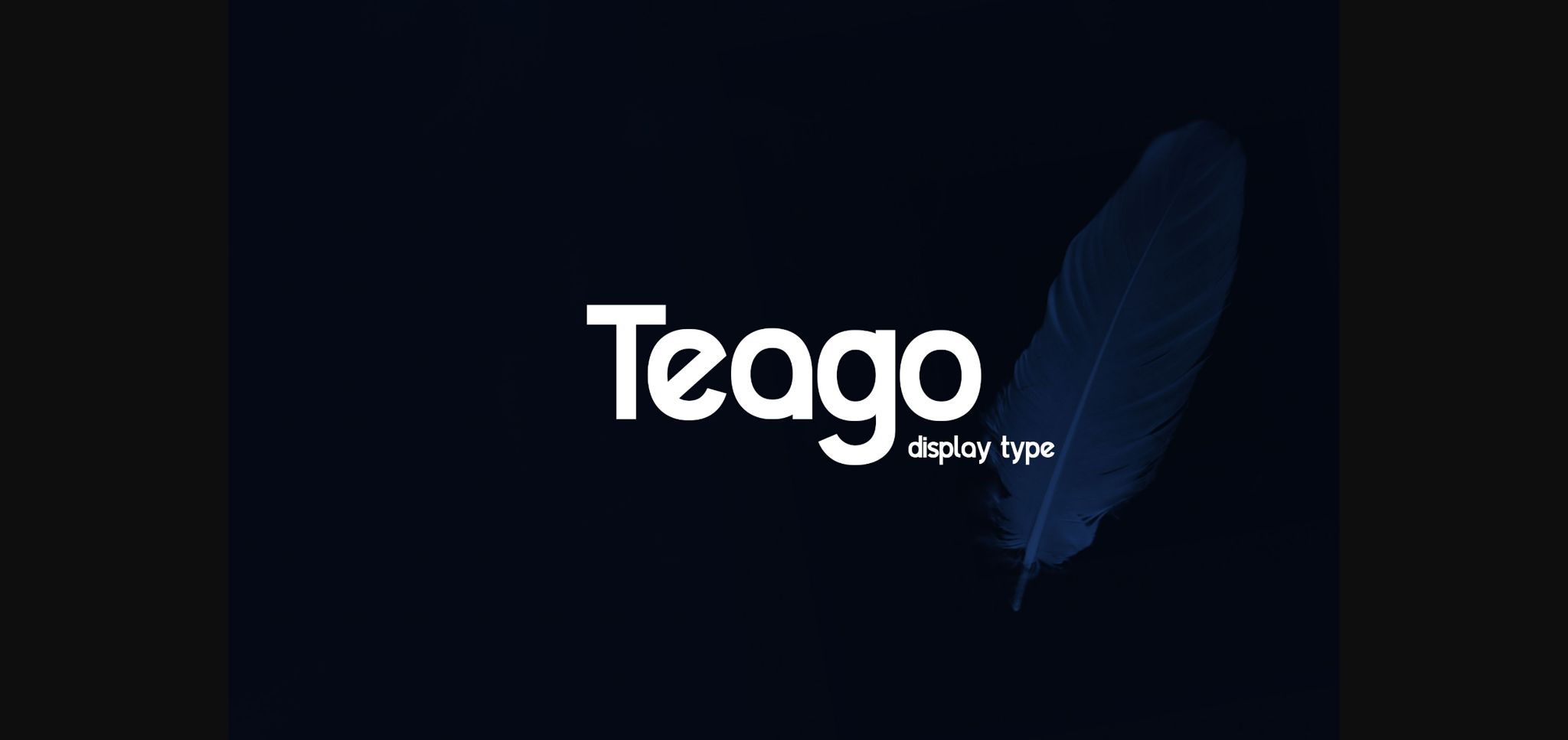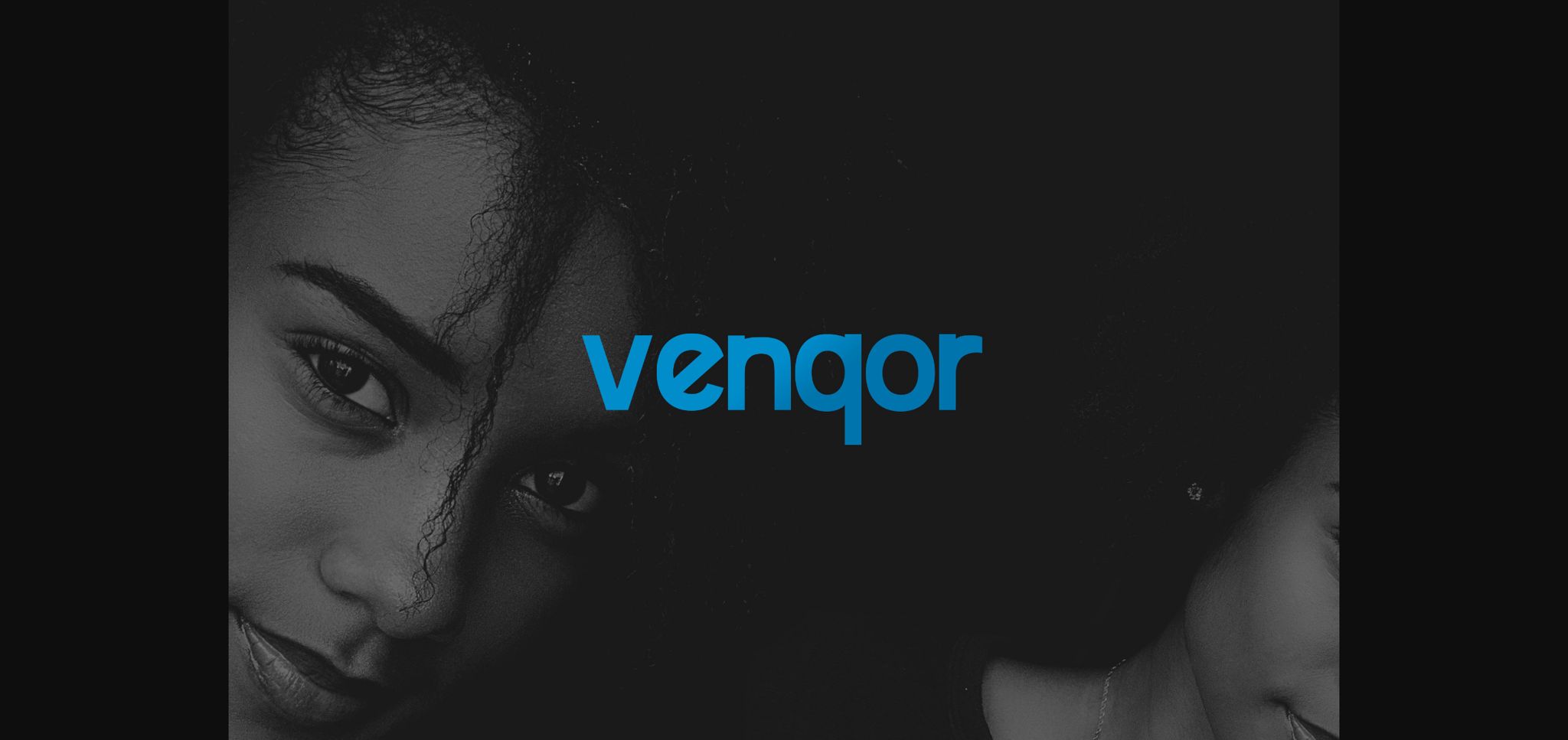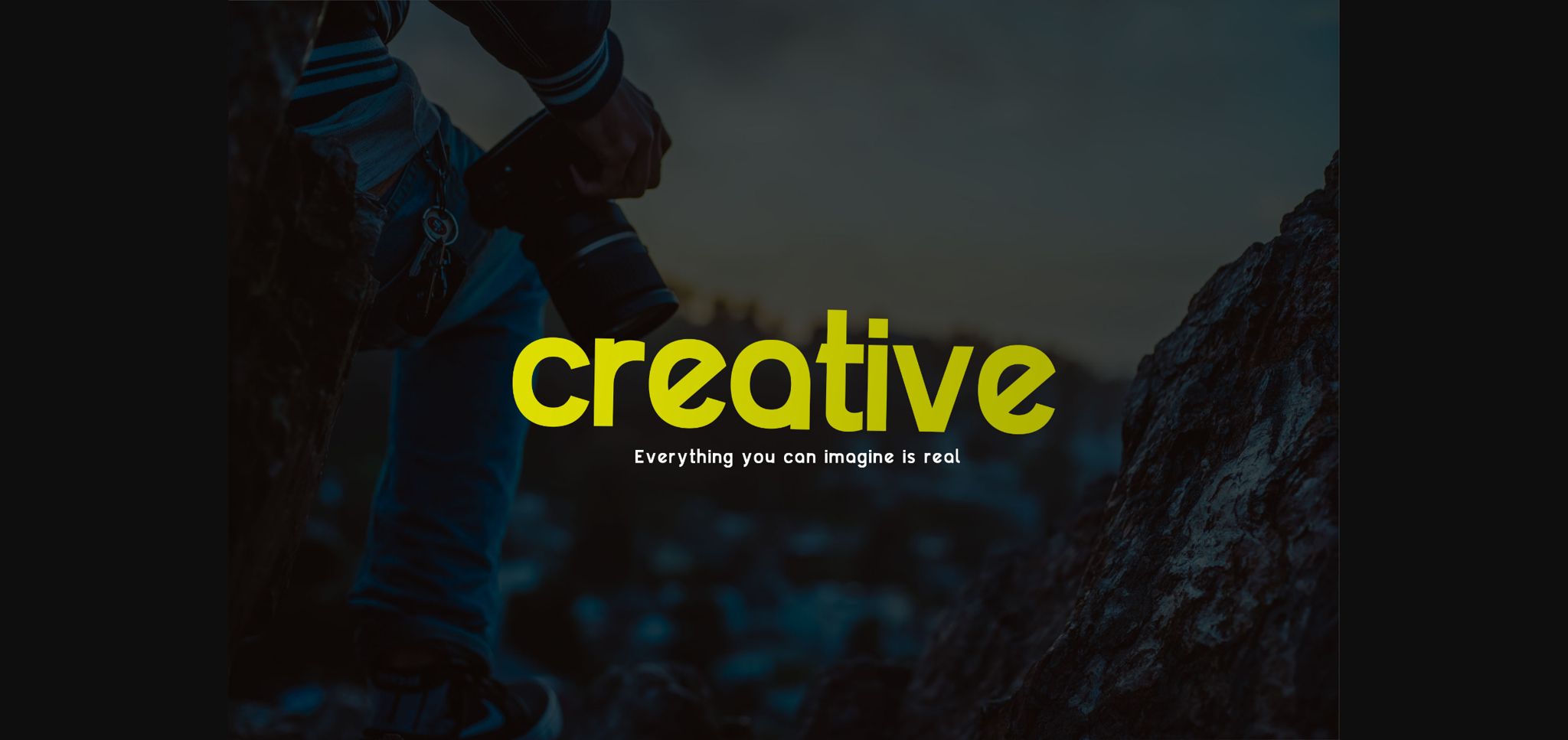
HomeSans Serif FontsTeago Font Sans Serif Fonts Teago Font FacebookXPinterestWhatsApp 1 of 5 ... Teago Font Poster 2... Teago Font Poster 3... Teago Font Poster 4... Teago Font Poster 5... About Teago Font Teago is a minimal and neat sans serif font. It can easily be matched to an incredibly large set of projects, so add it to your creative ideas and notice how it makes them stand out! DOWNLOAD NOW People also explored Lovely Heart Sweet Hearts Font Watercolor Font Bellezza Extra Black Font Hello Grimm Font Marry Merry Font Headstrong Script Font Beatrixel Font Burgie 398 0 TagsTeagoTeago Font Previous articleBobogo FontNext articleAquarilla Font LEAVE A REPLY Cancel reply Comment: Please enter your comment! Name:* Please enter your name here Email:* You have entered an incorrect email address! Please enter your email address here Website: Save my name, email, and website in this browser for the next time I comment. Personal Use Free Adlanta Personal Use Free Read more about this font Archeology Personal Use Free Read more about this font Setta Personal Use Free Read more about this font BD RatterBit Personal Use Free Read more about this font BLOG Fonts That Capture the Spirit of New York City New York City is more than just a place—it’s an experience, a rhythm, a visual language... Top 10 Handwritten Fonts That Elevate Your Designs How to Install and Use Fonts on Windows, macOS, and Web Projects Transform Your Website: Elevate Your Typography with 7 Best Web Font Generators